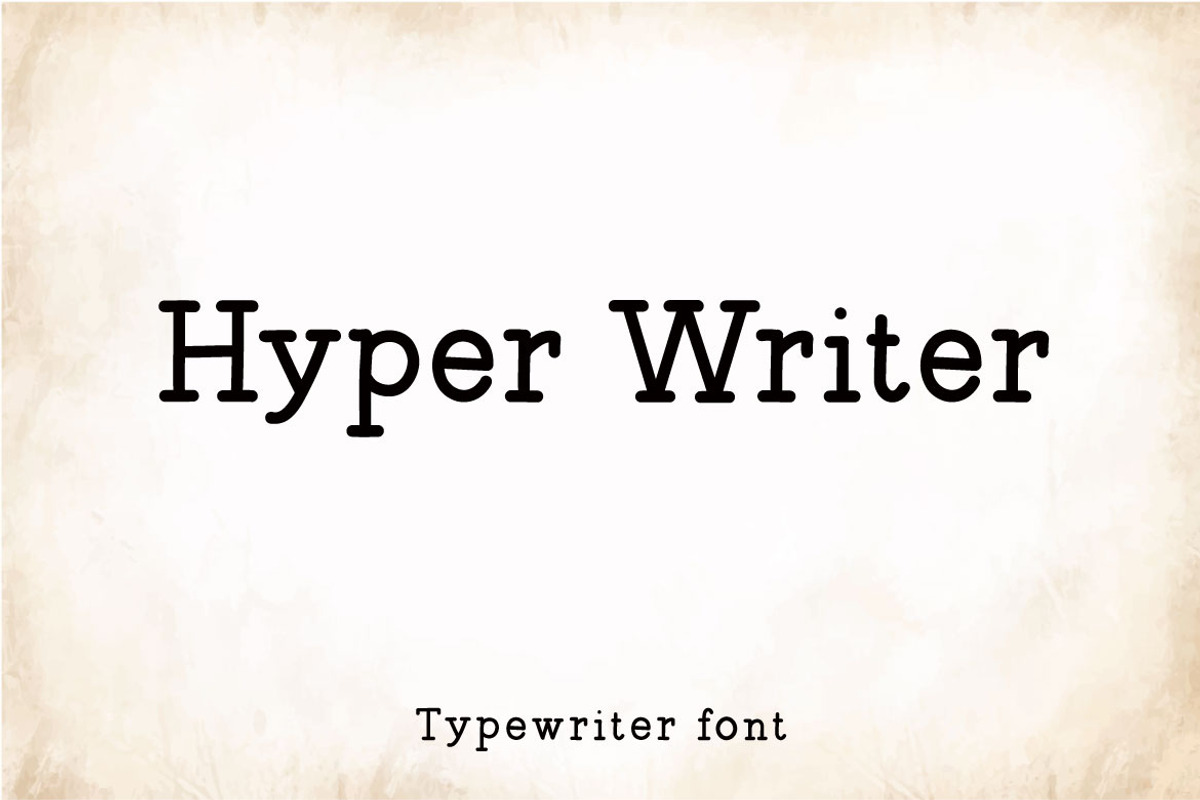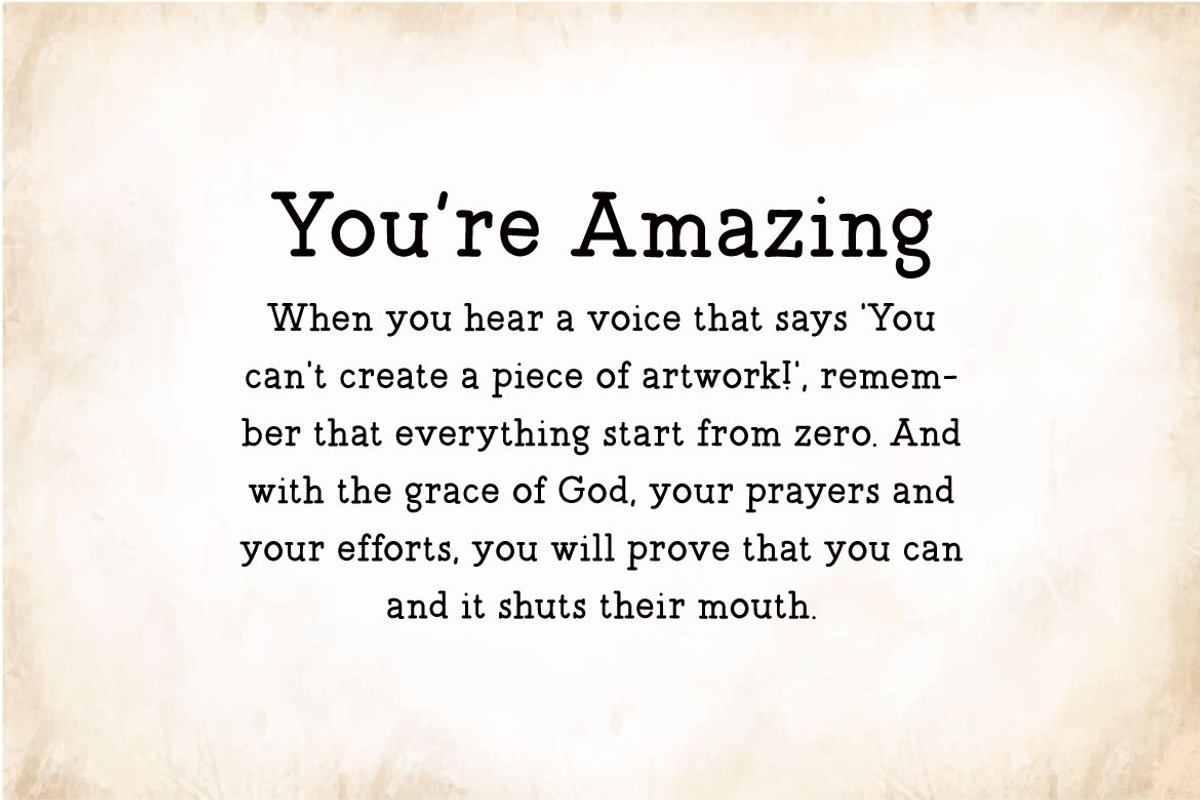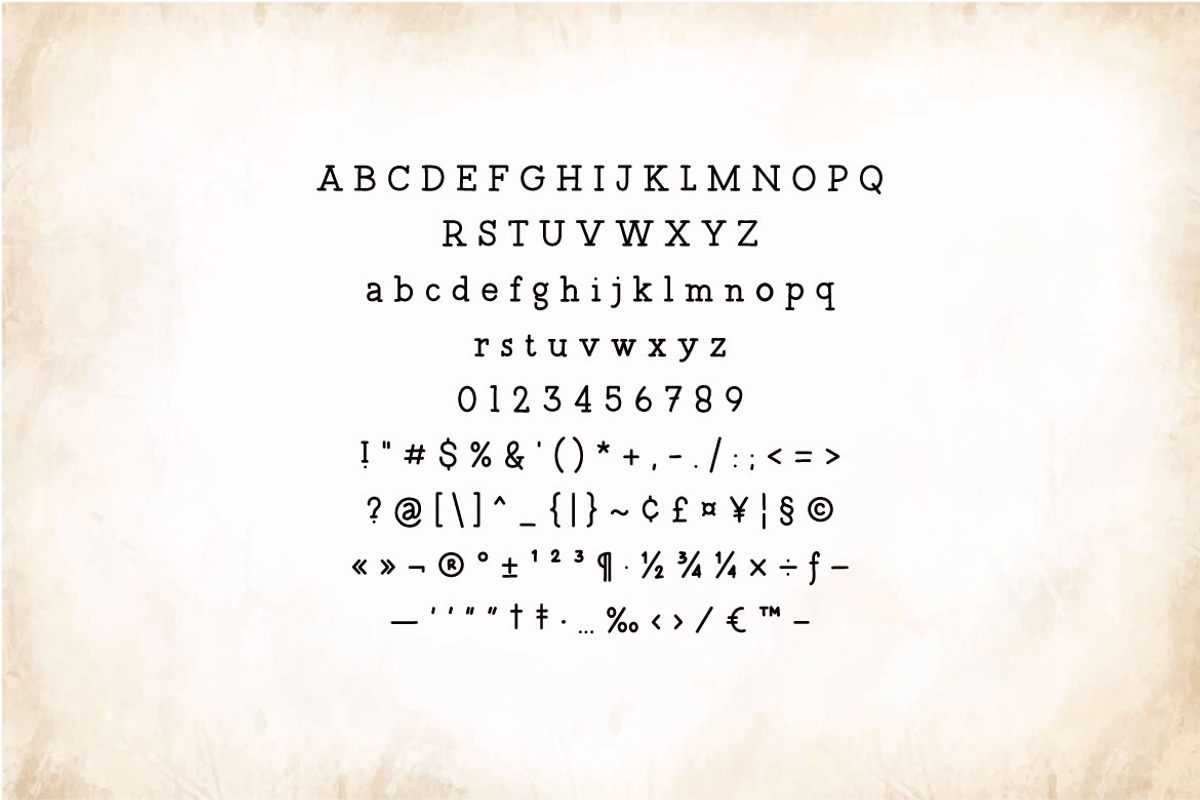
Hyper Writer - Typerwriter Font
Hello! Hyper Writer is a typewriter style font. Hyper Writer can be used in any works such as comic book, poster, school, flyer, book title, advertisement, social media content, logo and many more.